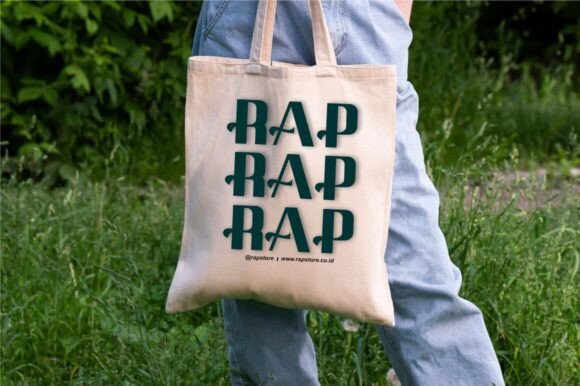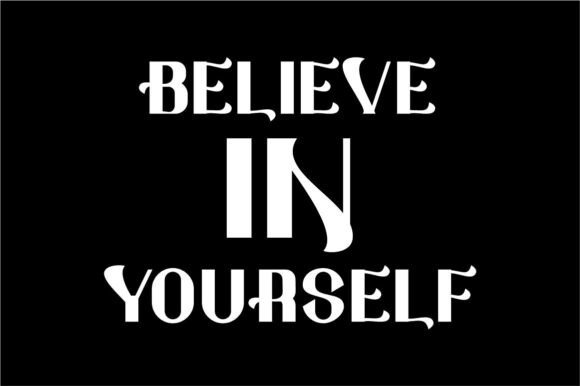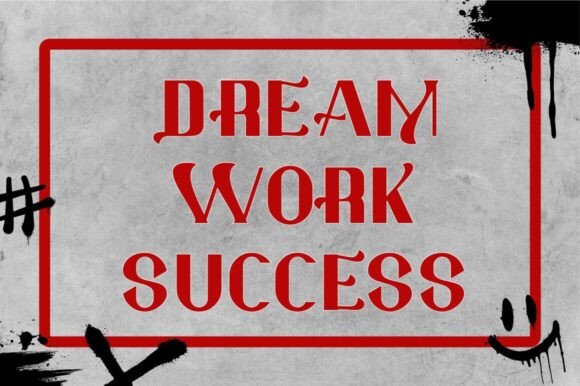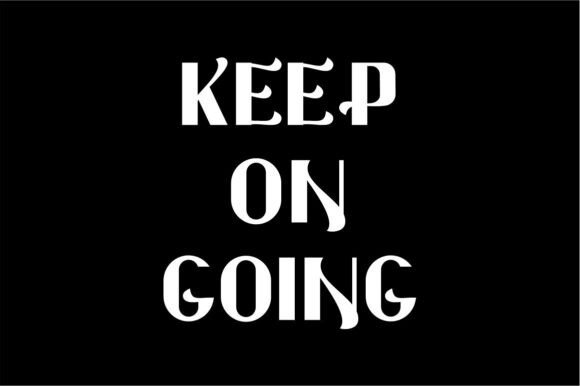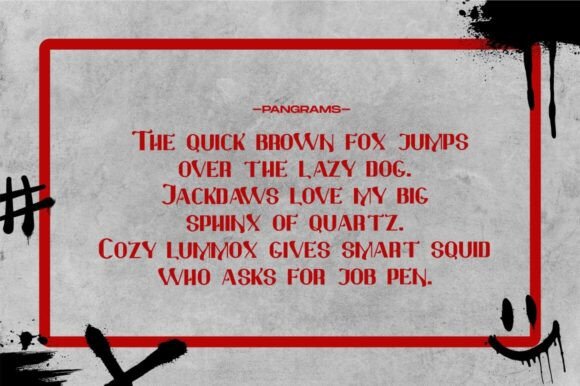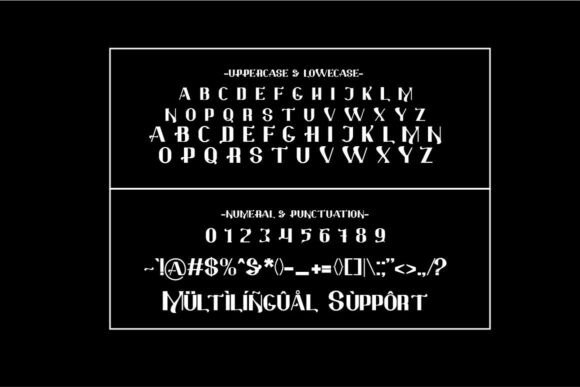
Introducing Famans Font: A Timeless Vintage Display Font
In the world of typography, few fonts manage to capture the essence of classic elegance while also exuding a sense of modern sophistication. Famans Font is one such exceptional typeface that brings together the best of both worlds. This bold and elegant vintage display font is designed to transport you back in time, evoking the charm of early 20th-century signage and advertising, while still maintaining a level of refinement that makes it perfect for contemporary design projects.
The Inspiration Behind Famans
The design of Famans Font draws heavily from the rich heritage of classic typography. Its creator aimed to blend the strong serif characteristics of traditional fonts with intricate detailing, resulting in a typeface that feels both nostalgic and luxurious. Each letterform in Famans is meticulously crafted, boasting thick strokes and ornate curves that instantly command attention. This careful attention to detail ensures that the font stands out in any design, whether it’s used for headlines, logos, or branding projects.
Key Features of Famans Font
Famans Font comes with a range of features that make it an ideal choice for designers and crafters looking for a vintage display font with a difference. Some of its key characteristics include:
- Bold and Elegant Design: The font’s bold strokes and elegant curves make it perfect for creating eye-catching headlines and titles.
- Intricate Detailing: The intricate detailing on each letterform adds a level of sophistication, making Famans suitable for high-end branding projects.
- Timeless Charm: The font’s classic design ensures that it remains timeless, avoiding the trend-driven nature of some modern fonts.
- Legibility and Artistic Flair: Famans strikes a perfect balance between legibility and artistic expression, making it versatile for various design applications.
Using Famans Font in Design Projects
Whether you’re a designer working on a client’s branding project or a crafter looking for the perfect font for your handmade goods, Famans Font offers a wide range of possibilities. Here are some ideas on how to incorporate this beautiful font into your work:
- Headlines and Titles: Use Famans to create striking headlines and titles that capture the essence of your brand or message.
- Logos and Branding: The font’s elegant and sophisticated design makes it perfect for logos, business cards, and other branding materials.
- Advertising and Marketing: Famans can add a touch of vintage glamour to your advertising and marketing materials, helping you stand out in a crowded marketplace.
- Packaging and Product Design: Add a touch of old-world elegance to your product packaging with Famans Font, making your products more visually appealing.
Why Choose Famans Font?
In a sea of modern fonts, Famans Font stands out for its unique blend of vintage charm and contemporary sophistication. Here are some reasons why designers and crafters should consider Famans for their projects:
- Unique Design: Famans offers a distinctive look that sets it apart from more common fonts.
- Versatility: The font’s legibility and artistic flair make it suitable for a wide range of design applications.
- Timeless Appeal: Famans avoids the trend-driven nature of some fonts, ensuring that your designs remain relevant for years to come.
Famans Font is a remarkable addition to any designer’s or crafter’s toolkit. Its bold and elegant vintage display design, combined with intricate detailing and a timeless charm, makes it the perfect choice for those looking to add a touch of old-world sophistication to their work. Whether you’re working on a branding project, creating handmade goods, or simply looking for a font that stands out, Famans is sure to impress. With its versatility, unique design, and enduring appeal, Famans Font is an excellent choice for anyone seeking to elevate their designs to the next level.